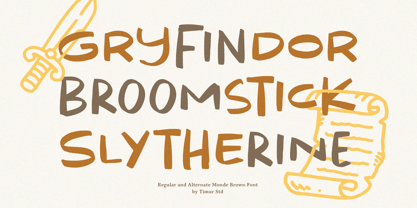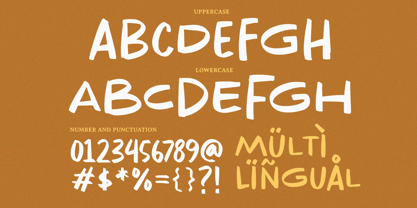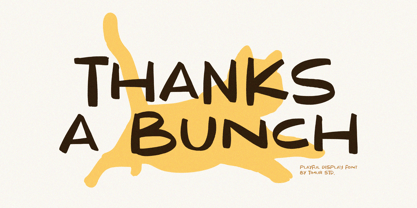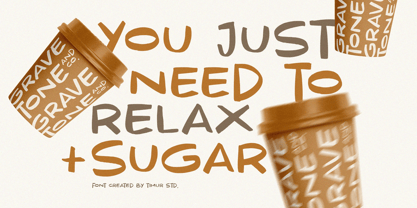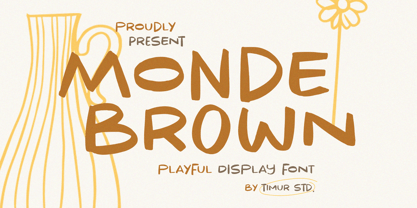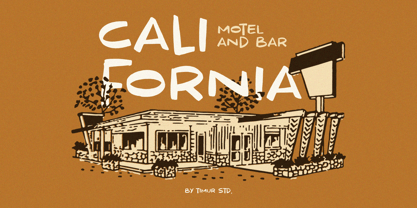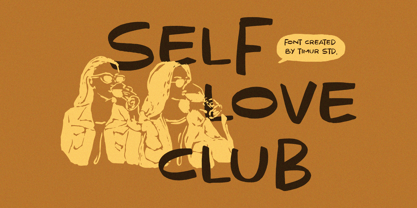
Monde Brown
von Timurtype
Die Schriftfamilie Monde Brown wurde von Wara Sigit Tri Pamungkas entworfen und von Timurtype veröffentlicht. Monde Brown enthält 1 Stile. Mehr über diese Familie
Introduced by Timurtype Studio!
Monde Brown is a Playful Display Font
This font is a playful and dynamic display font designed to bring a lively and engaging feel to your projects. Characterized by a bold aesthetic and rounded edges, it is ideal for branding, headlines, logos, and editorial designs. The font includes enabling creative and fluid combinations for enhanced visual appeal.
Monde Brown also supports multilingualism
Designer: Wara Sigit Tri Pamungkas
Foundry: Timurtype